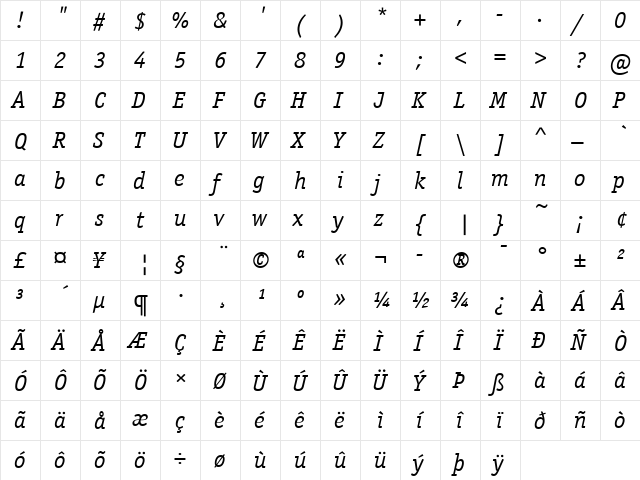
Officina Serif ITC Book Italic
| Style | Book Italic |
| Foundry | by URW |
Design Context for Officina Serif ITC Typeface
Officina Serif ITC brings classic typographic sensibility to the table — its serifs and measured letterforms reflect centuries of print heritage. Its italic angle brings a sense of urgency and motion to the letterforms.